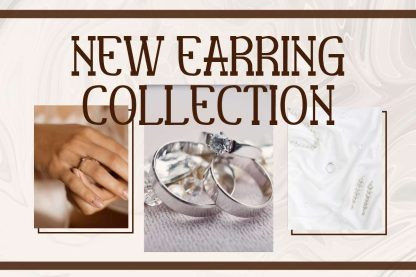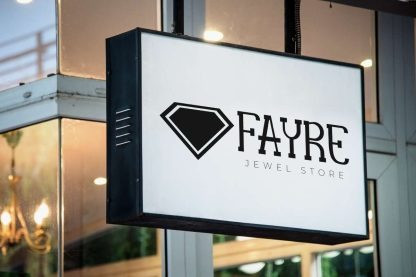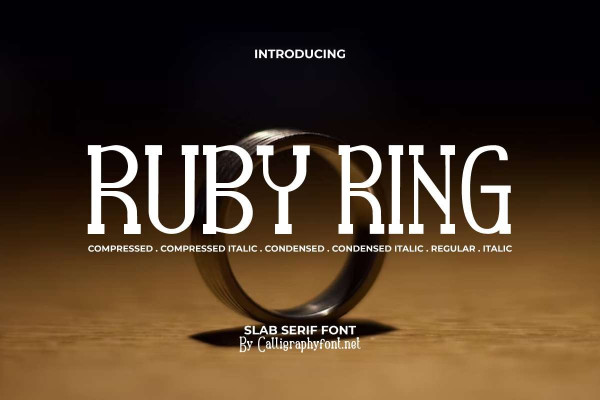
Ruby Ring Font
Ruby Ring Font is a unique slab serif display font that packs in six styles: Regular, Italic, Compressed, Compressed Italic, Condensed, and Condensed Italic. This type of font gives a modern impression and feels expensive. Its unique, tall shape is adapted from a serif base so it will suit any industry, such as accessories, author, café, event organizer, fashion, furniture, handicraft, honey manufacturers, jewelry, photography, pottery, printing, publishing, restaurant, wedding, and many more.
Ruby Ring Font is a great choice to make it the main text (primary text) or paired with another type of font (secondary text). It will be ready to accompany you in any project, such as apps, billboard, body text, brand logo, brochure, catalog, cover, header, mockup, menu, packaging design, poster, product label, screen print, signage, stationery, sticker, watermark, website, etc.